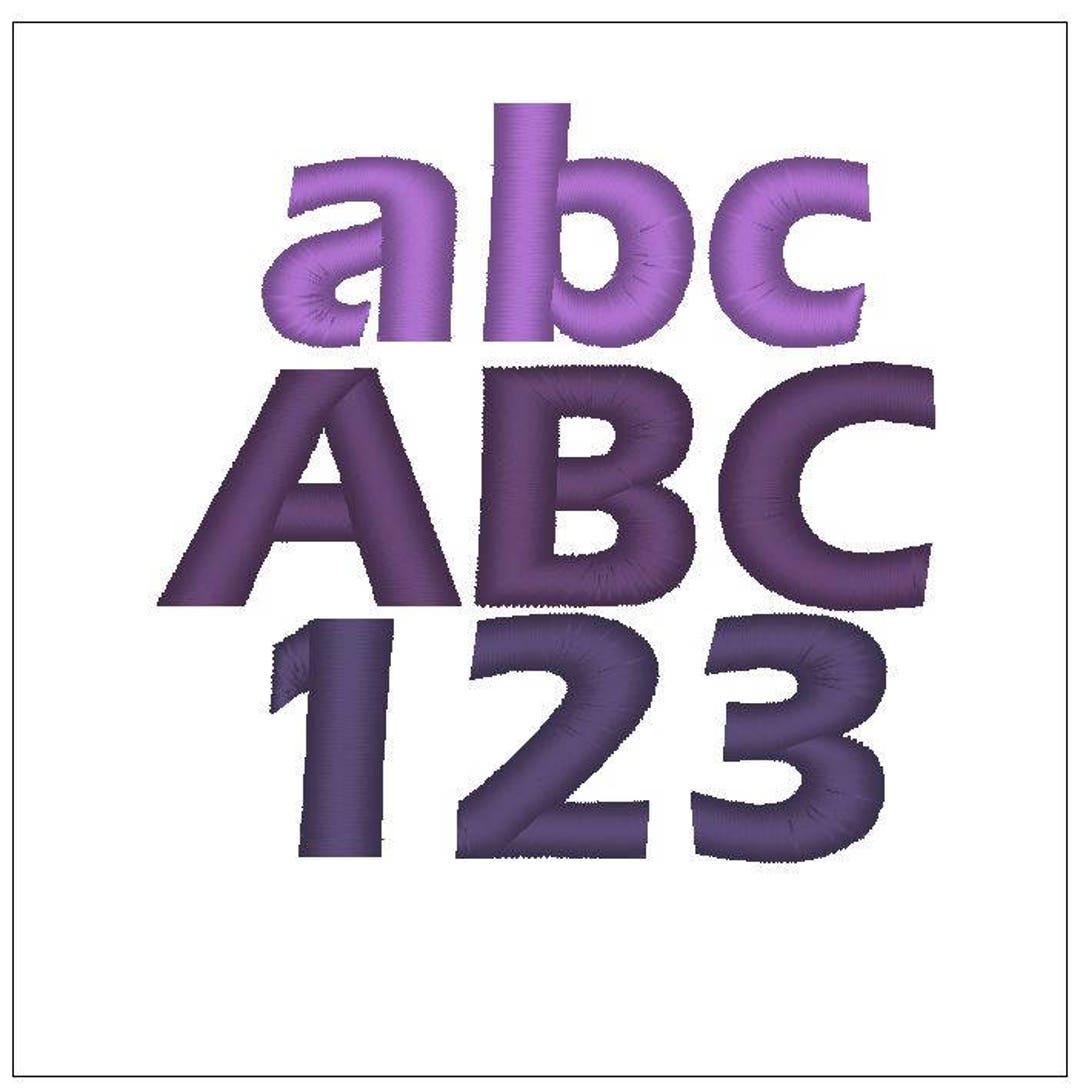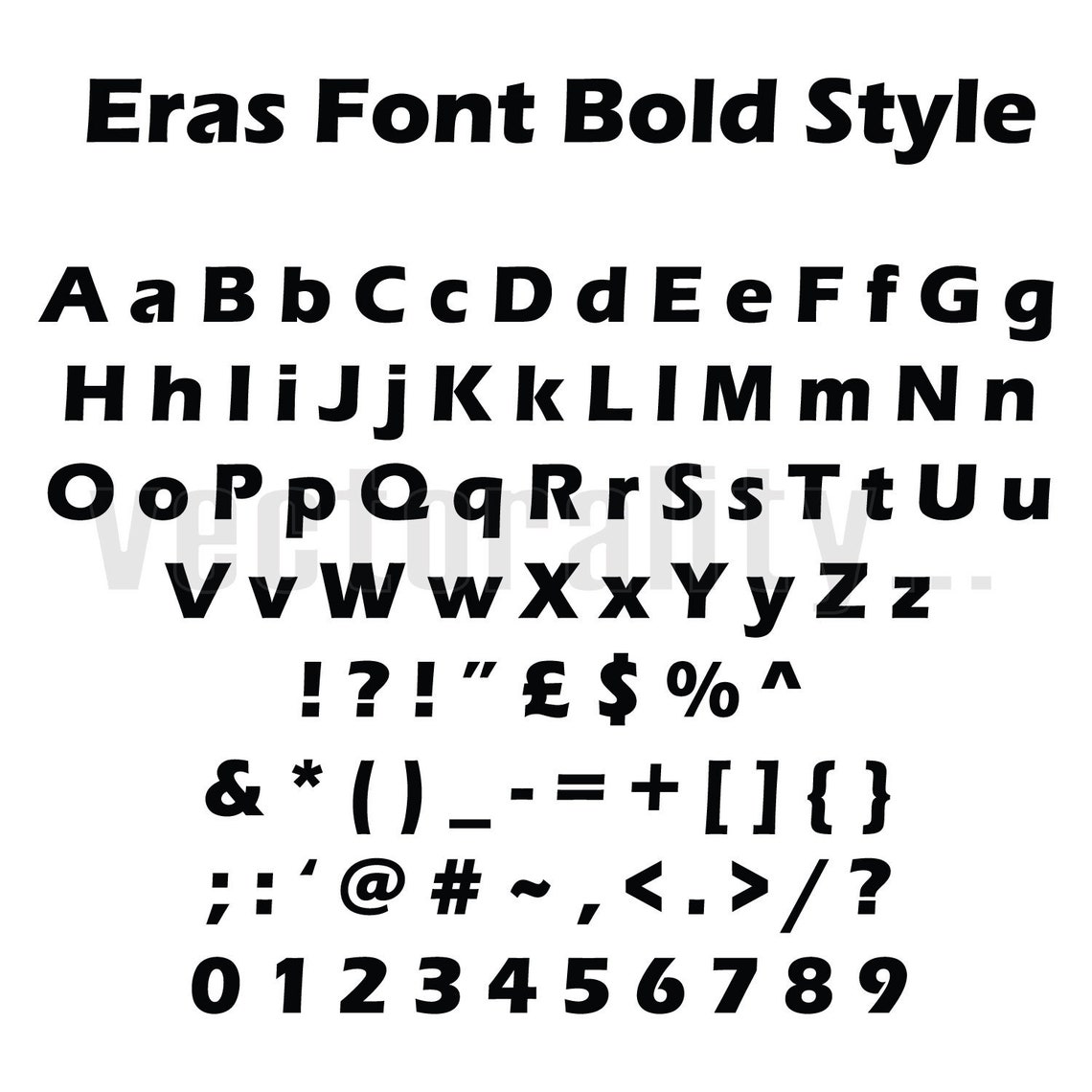
Download Eras Bold Font . Complete family of 6 fonts: The eras itc bold font appearance may differ based on. Download itc eras® bold font. The font family is itc eras. A very slight italic angle,. Eras was first cut by the wagner foundry in 1969 for studio hollenstein, paris. The font subfamily is bold. Itc eras contains 6 styles and family package options. Itc eras bold is the perfect font for all your fun designs. Free glyph 994 style 5 downloads 5621. Eras itc bold is the perfect font for all your fun designs. The font subfamily is regular. Free glyph 149 style 11 downloads 6564. Itc eras font family was designed by albert hollenstein, albert boton and published by itc. Eras font was initially designed by two.
A very slight italic angle,. Eras itc bold is the perfect font for all your fun designs. Free glyph 994 style 5 downloads 5621. Eras font was initially designed by two. Eras was first cut by the wagner foundry in 1969 for studio hollenstein, paris. Itc eras font family was designed by albert hollenstein, albert boton and published by itc. The font subfamily is regular. Complete family of 6 fonts: Free glyph 149 style 11 downloads 6564. Download itc eras® bold font.
Download Eras Bold Font A very slight italic angle,. Free glyph 994 style 5 downloads 5621. Eras font was initially designed by two. Eras was first cut by the wagner foundry in 1969 for studio hollenstein, paris. The font subfamily is bold. Eras itc bold is the perfect font for all your fun designs. Free glyph 149 style 11 downloads 6564. Complete family of 6 fonts: Itc eras font family was designed by albert hollenstein, albert boton and published by itc. Itc eras contains 6 styles and family package options. Itc eras bold is the perfect font for all your fun designs. The eras itc bold font appearance may differ based on. Download itc eras® bold font. The font family is itc eras. A very slight italic angle,. The font subfamily is regular.
Eras Bold Italic truetype font Download Eras Bold Font Complete family of 6 fonts: The font subfamily is bold. Itc eras font family was designed by albert hollenstein, albert boton and published by itc. Free glyph 994 style 5 downloads 5621. Eras font was initially designed by two. Eras itc bold is the perfect font for all your fun designs. Free glyph 149 style 11 downloads 6564. A very. Download Eras Bold Font.
Identifont ITC Eras Bold Download Eras Bold Font Download itc eras® bold font. Eras itc bold is the perfect font for all your fun designs. Free glyph 994 style 5 downloads 5621. The font family is itc eras. Eras font was initially designed by two. A very slight italic angle,. Eras was first cut by the wagner foundry in 1969 for studio hollenstein, paris. Complete family of 6. Download Eras Bold Font.
Eras BQ Font Family Download Free for Desktop & font Download Eras Bold Font Itc eras contains 6 styles and family package options. Eras itc bold is the perfect font for all your fun designs. Free glyph 994 style 5 downloads 5621. Free glyph 149 style 11 downloads 6564. Eras font was initially designed by two. Complete family of 6 fonts: A very slight italic angle,. Itc eras font family was designed by albert. Download Eras Bold Font.
Eras Bold ITC Font Free Download Eras Bold Font Complete family of 6 fonts: A very slight italic angle,. The font family is itc eras. Itc eras bold is the perfect font for all your fun designs. Eras font was initially designed by two. Itc eras font family was designed by albert hollenstein, albert boton and published by itc. The font subfamily is regular. Download itc eras® bold font.. Download Eras Bold Font.
Eras Bold ITC Font Free Download Eras Bold Font Eras was first cut by the wagner foundry in 1969 for studio hollenstein, paris. Itc eras bold is the perfect font for all your fun designs. Eras itc bold is the perfect font for all your fun designs. Free glyph 149 style 11 downloads 6564. The eras itc bold font appearance may differ based on. The font subfamily is bold.. Download Eras Bold Font.
Erasbold Font Svg Png Ai Eps Dxf Alphabet/font Images/clipart Etsy Download Eras Bold Font The font family is itc eras. The font subfamily is regular. Itc eras font family was designed by albert hollenstein, albert boton and published by itc. Free glyph 994 style 5 downloads 5621. A very slight italic angle,. Eras font was initially designed by two. Itc eras bold is the perfect font for all your fun designs. Itc eras contains. Download Eras Bold Font.
Download free Eras Bold ITC font, free ERASBD.TTF Regular font for Windows Download Eras Bold Font Download itc eras® bold font. Itc eras font family was designed by albert hollenstein, albert boton and published by itc. The font family is itc eras. Free glyph 994 style 5 downloads 5621. The eras itc bold font appearance may differ based on. A very slight italic angle,. The font subfamily is bold. Free glyph 149 style 11 downloads 6564.. Download Eras Bold Font.
Download free Eras font, free ErasBoldItalic.ttf Regular font for Windows Download Eras Bold Font Itc eras bold is the perfect font for all your fun designs. The eras itc bold font appearance may differ based on. The font subfamily is regular. Download itc eras® bold font. Eras font was initially designed by two. Free glyph 149 style 11 downloads 6564. Itc eras font family was designed by albert hollenstein, albert boton and published by. Download Eras Bold Font.
eras bold font download disneyxvansslipon Download Eras Bold Font Free glyph 149 style 11 downloads 6564. A very slight italic angle,. Itc eras contains 6 styles and family package options. Itc eras bold is the perfect font for all your fun designs. The eras itc bold font appearance may differ based on. Eras font was initially designed by two. The font subfamily is bold. The font family is itc. Download Eras Bold Font.